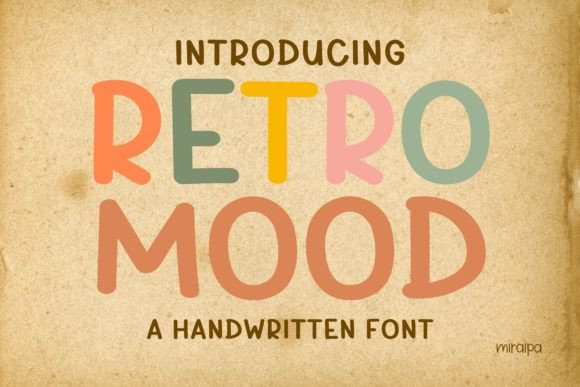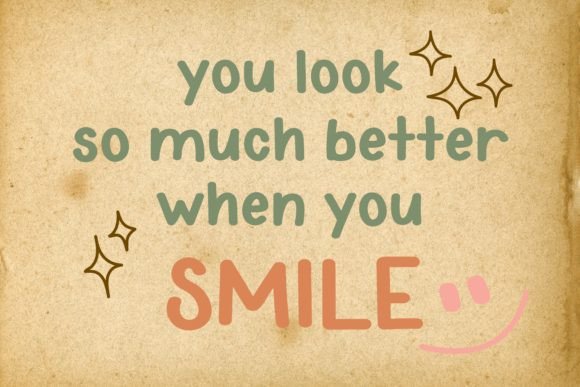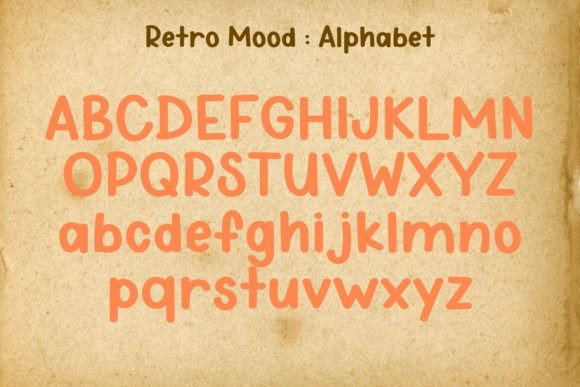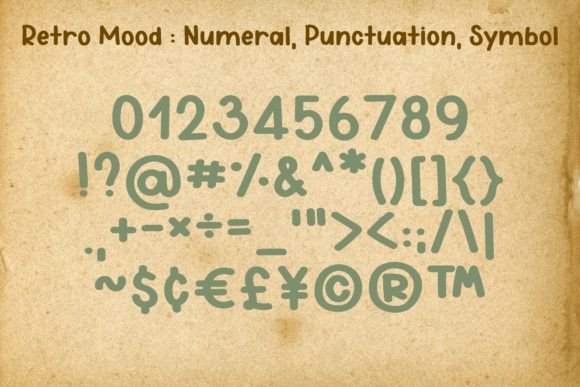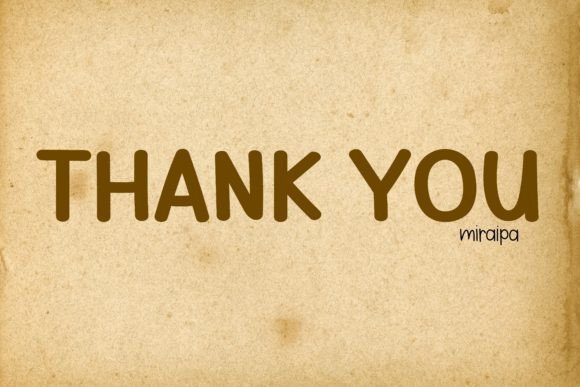
Retro Mood Font
Retro Mood is a fun and playful handwritten font. Whimsical and a bit quirky, this font will brighten up each of your designs. Add it confidently to your projects, and you will love the results.